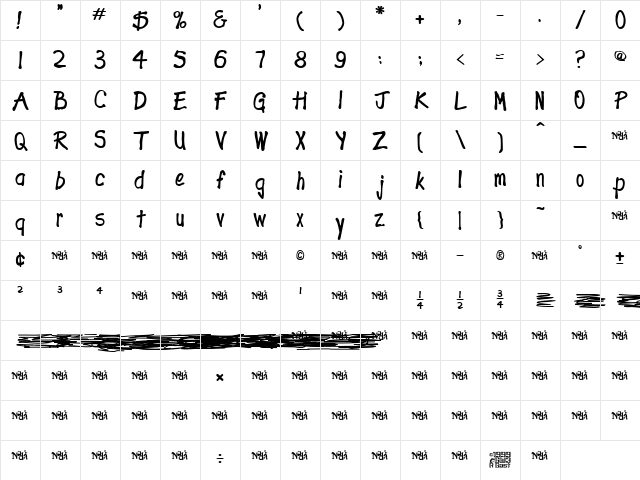
Expletive Deleted Regular
Design Context for Expletive Deleted
Expletive Deleted is a composed and adaptable typeface that performs quietly and consistently across a wide range of design contexts.
Pro Tip: Use Expletive Deleted in both headline and body roles to test its range before committing to a single application.